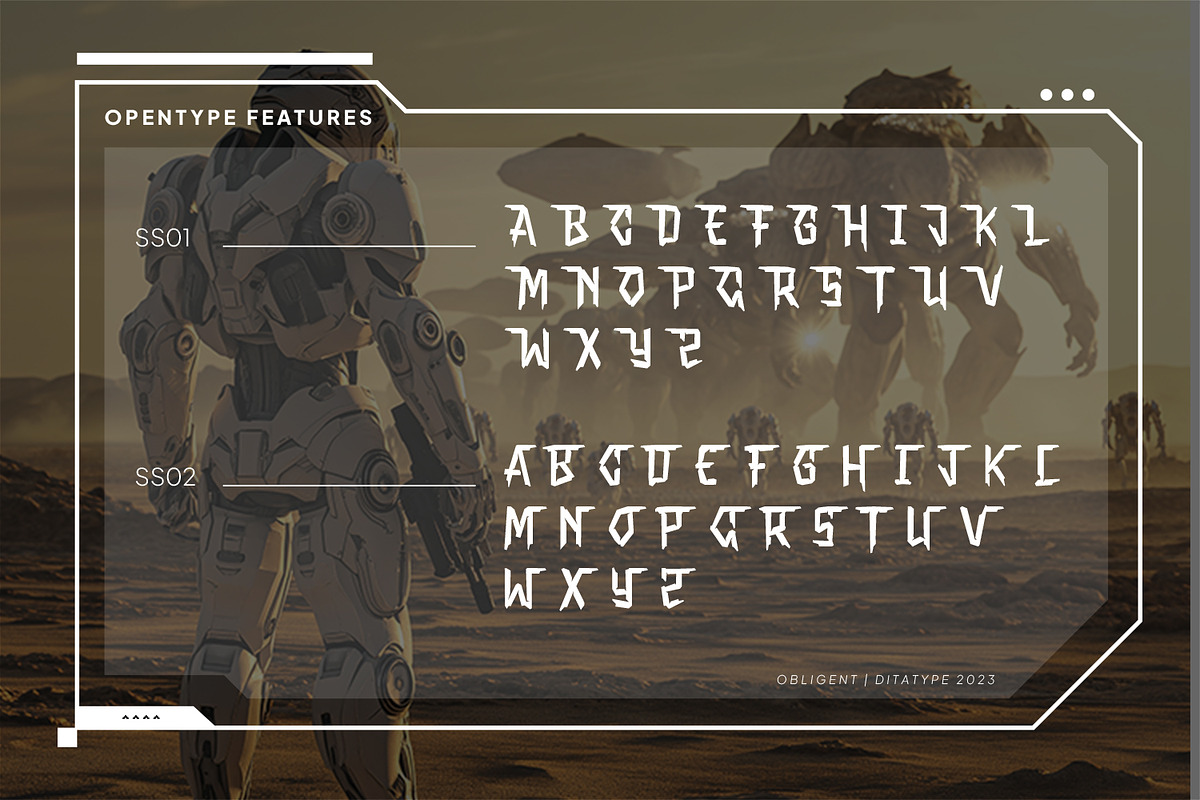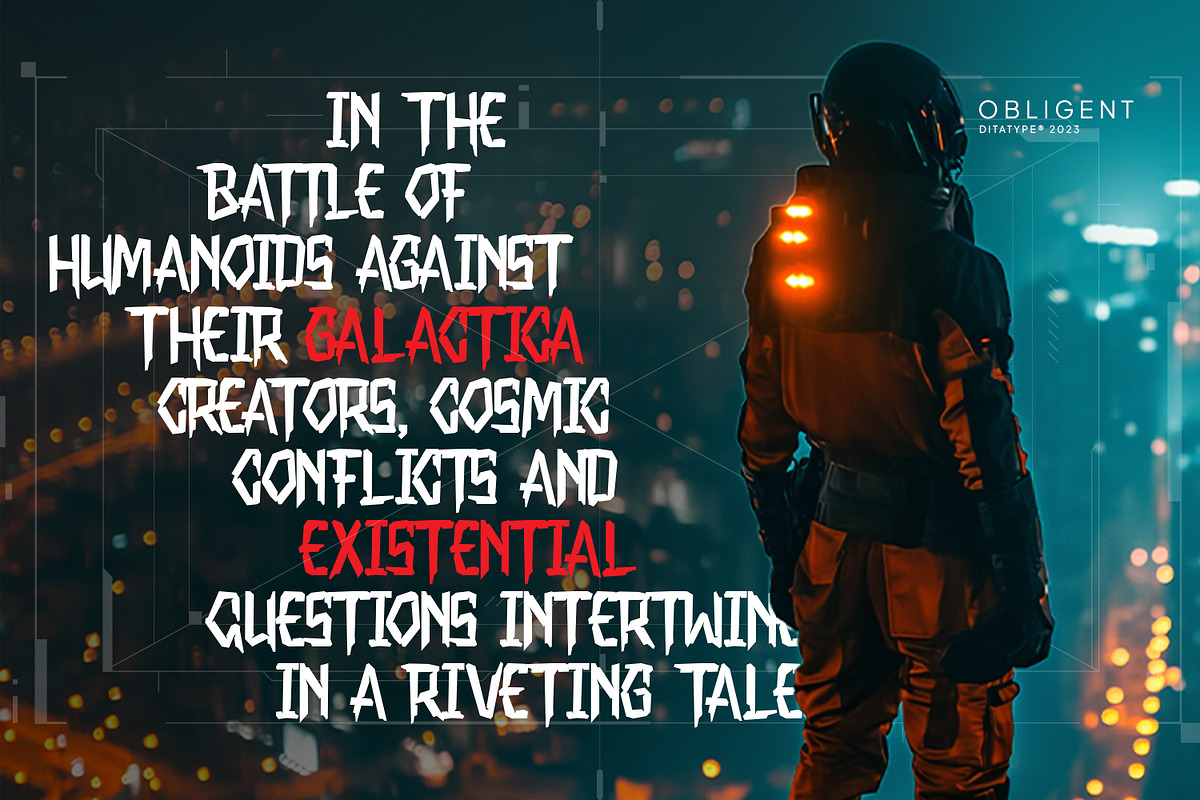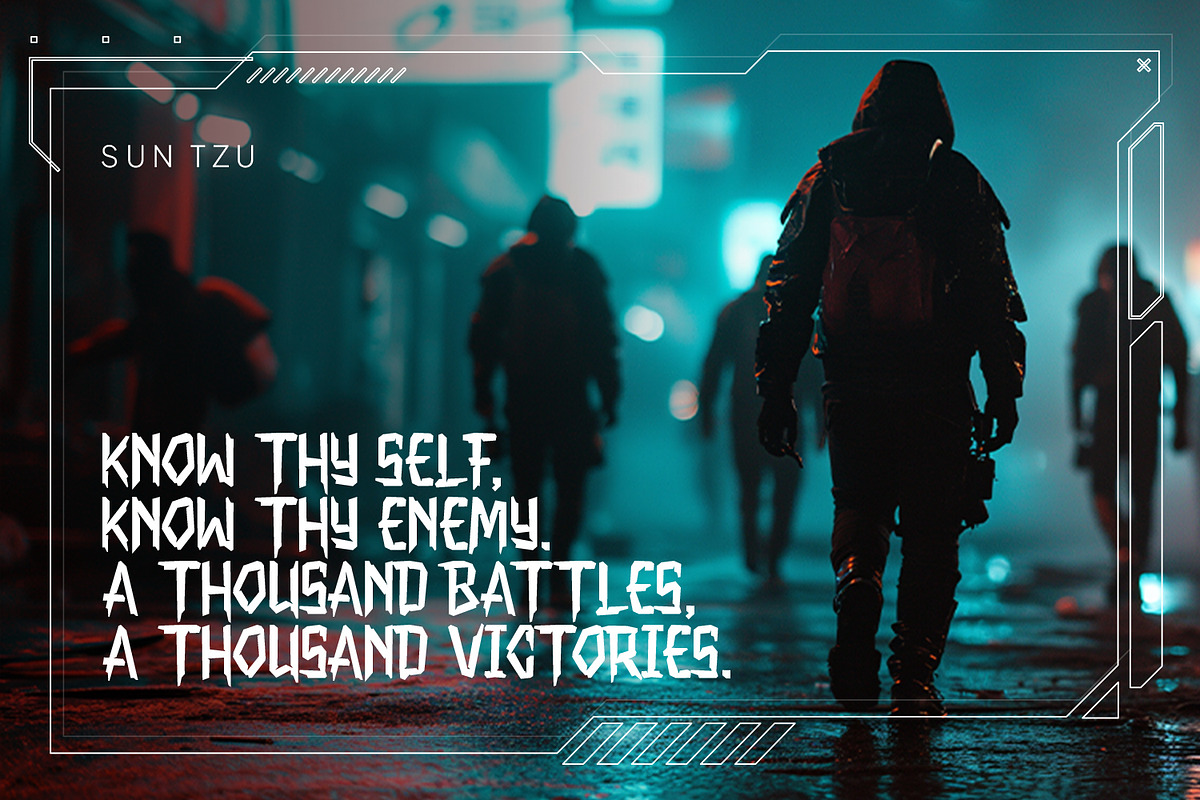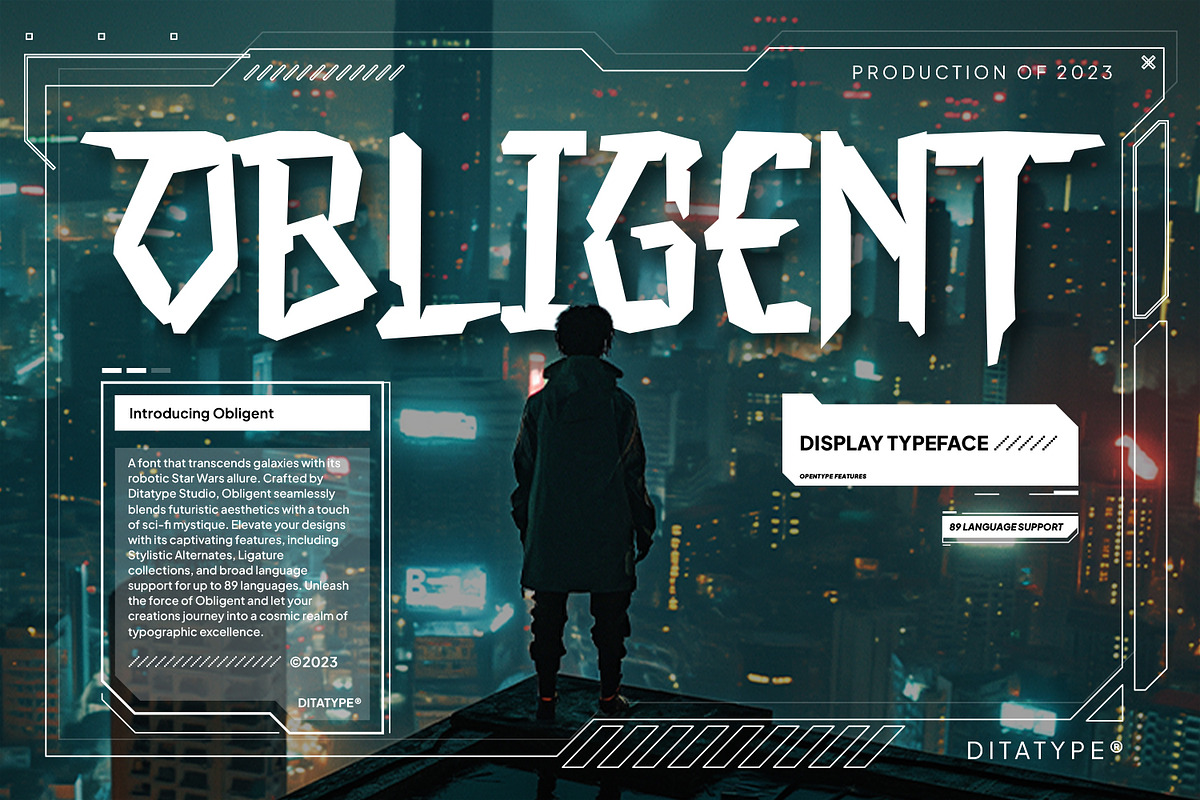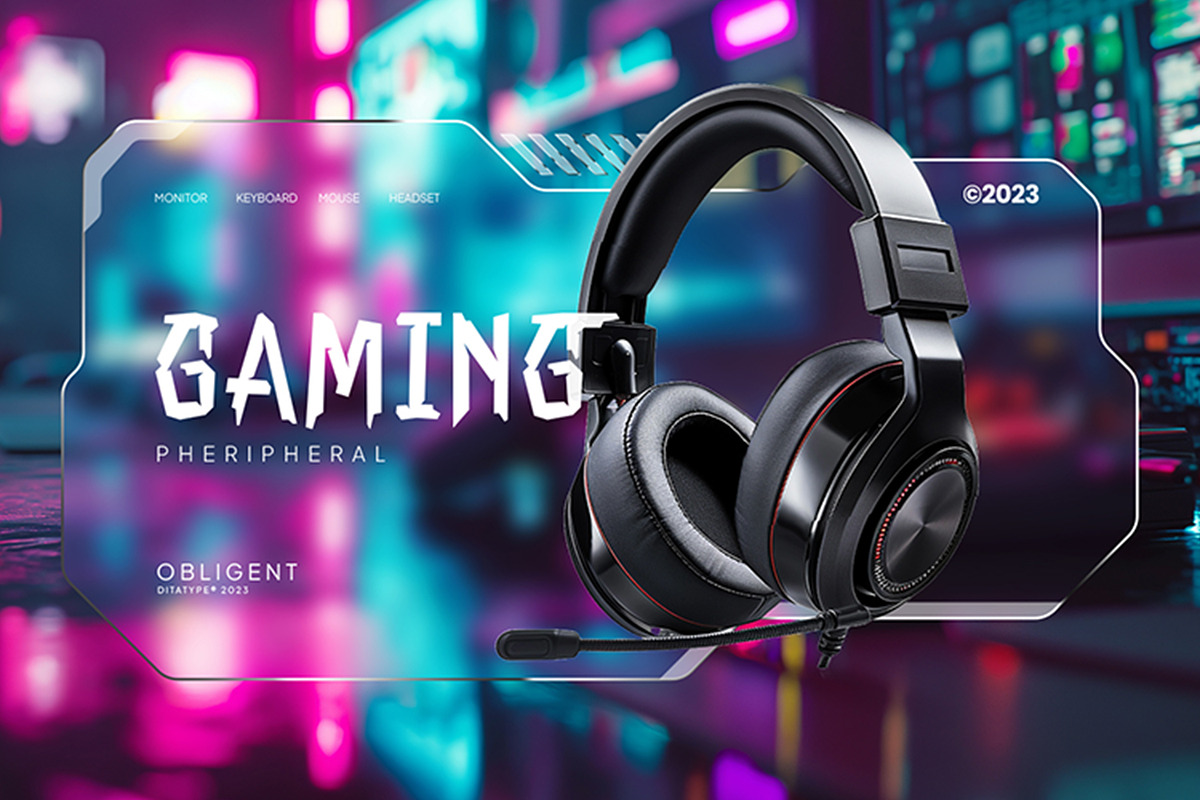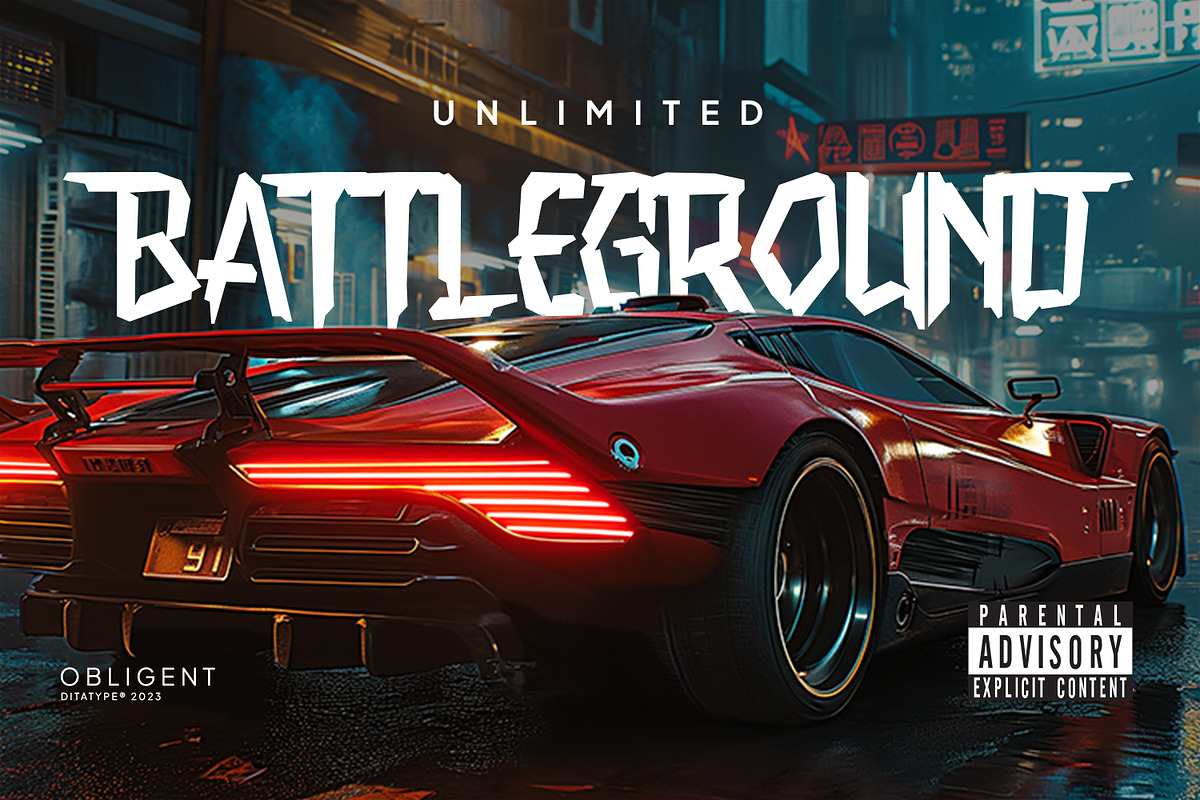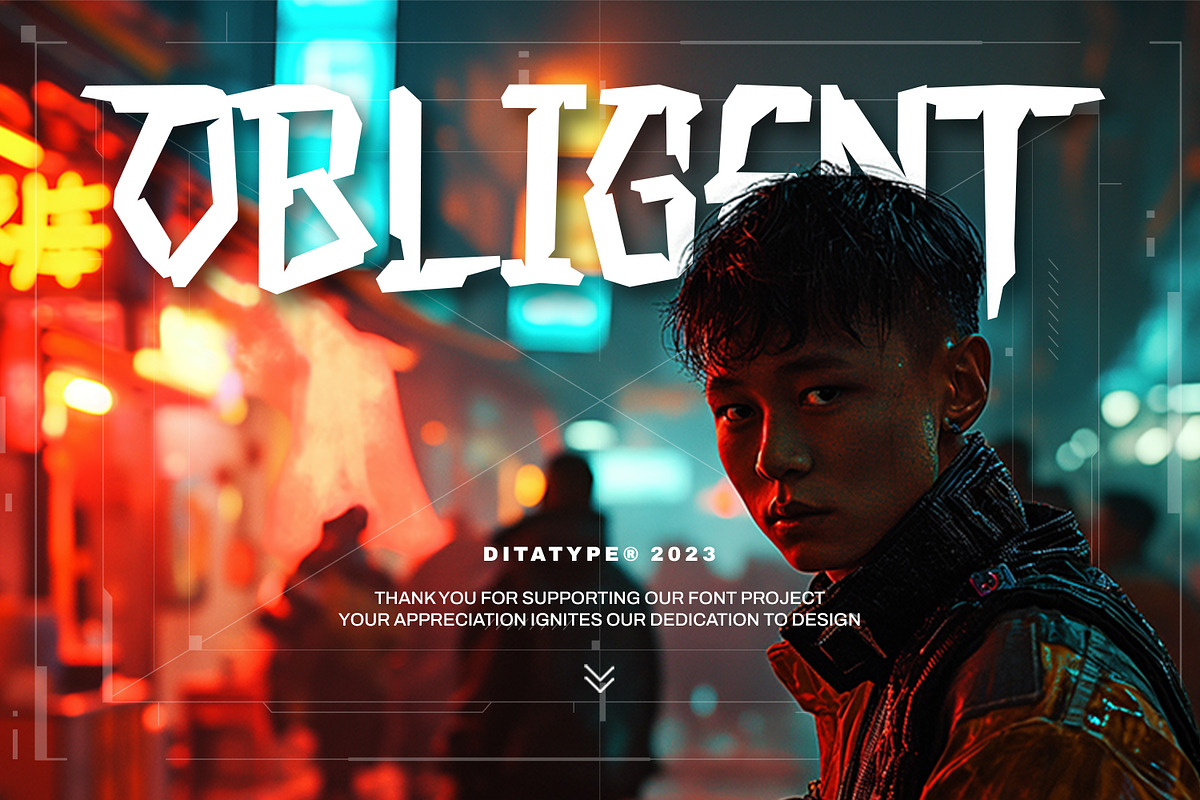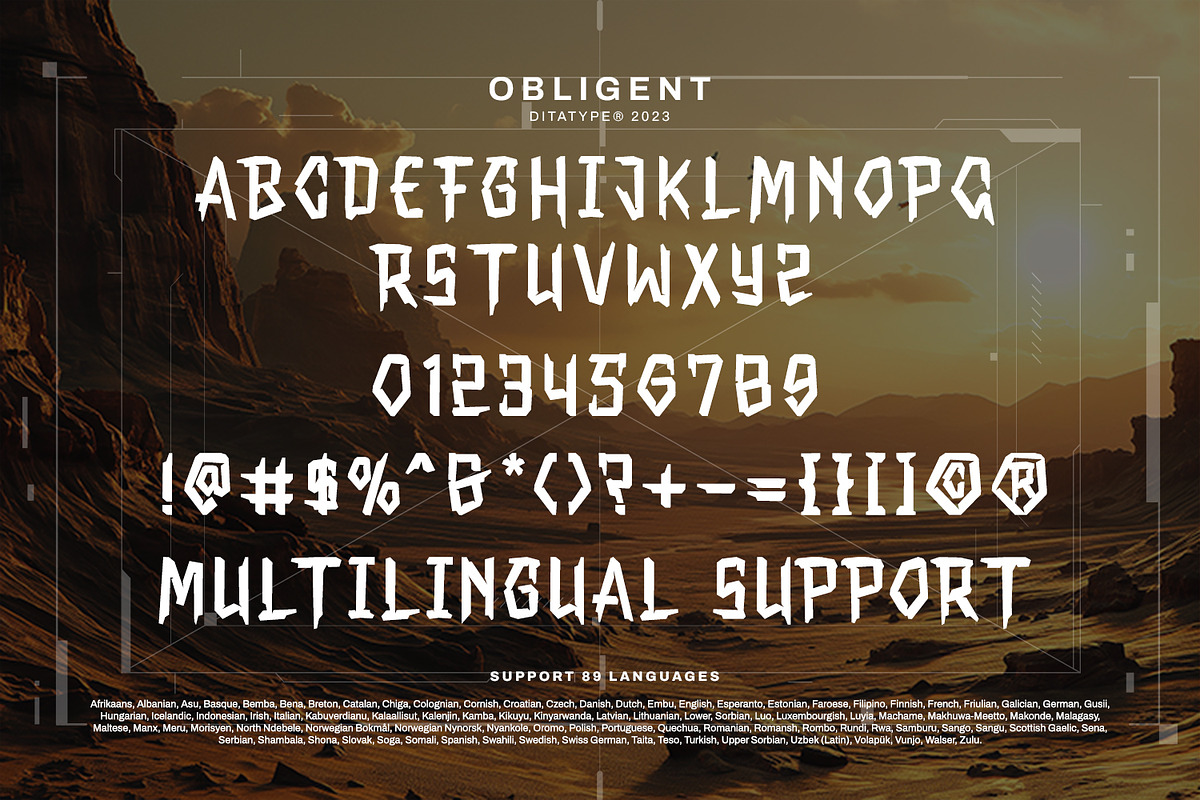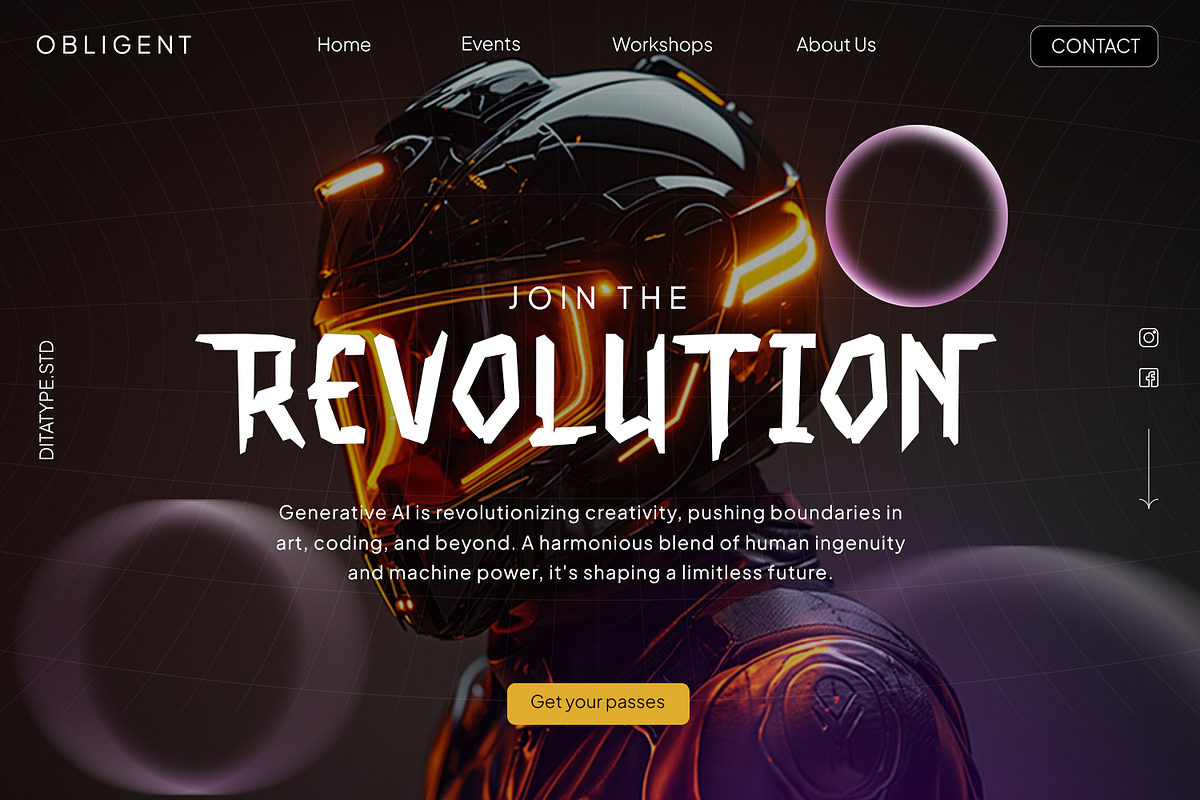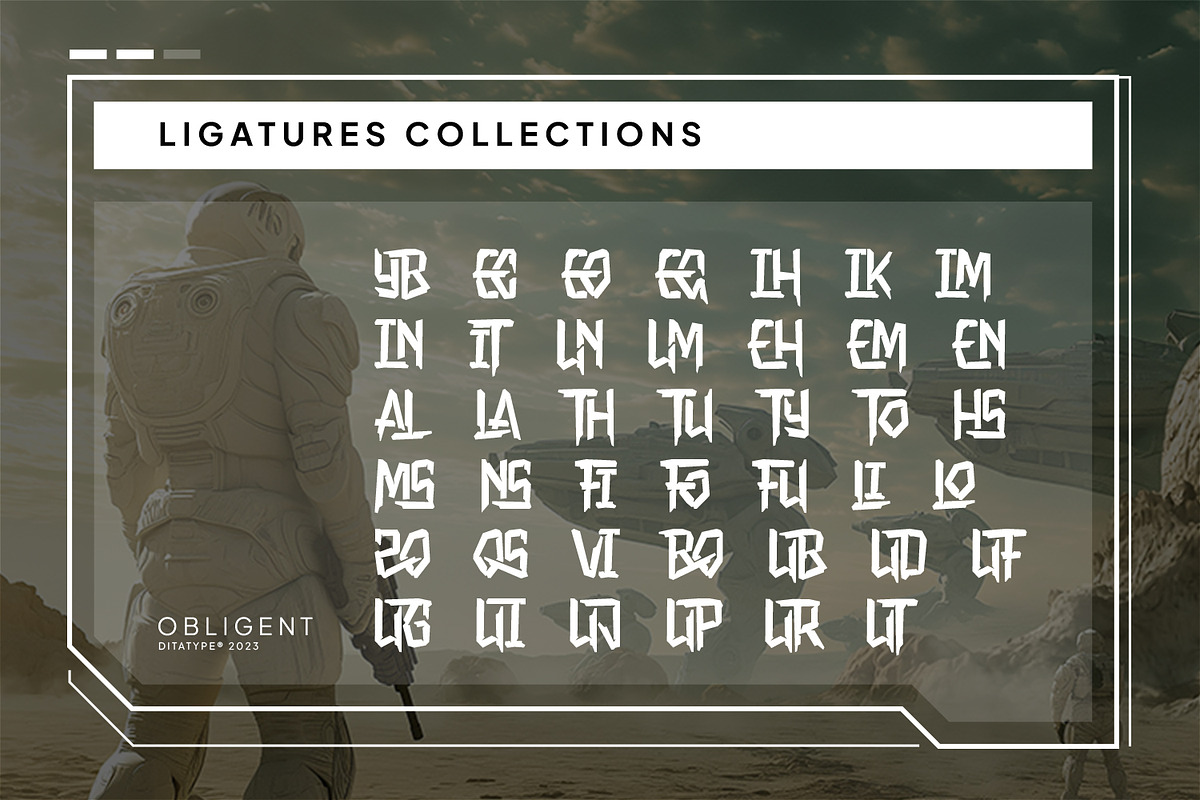
Obligent
Obligent is a mesmerizing display font that pushes the boundaries of design. Crafted with a fairly large weight, Obligent commands attention and infuses every word with a sense of intrigue and adventure.
At the heart of Obligent's design is its futuristic style, characterized by sleek lines, sharp angles, and geometric shapes that evoke the spirit of innovation and exploration. What sets Obligent apart is its uneven outline, which adds an element of dynamism and energy to the font. This irregularity in the outline creates a sense of movement and depth, giving each character a unique and captivating appearance that draws the viewer in. In addition, enjoy the features here.
- Stylistic Sets
Obligent fits in headlines, logos, posters, flyers, technology branding, sci-fi book covers, futuristic UI/UX design, editorial layouts, and many more designs. Find out more ways to use this font by taking a look at the font preview.